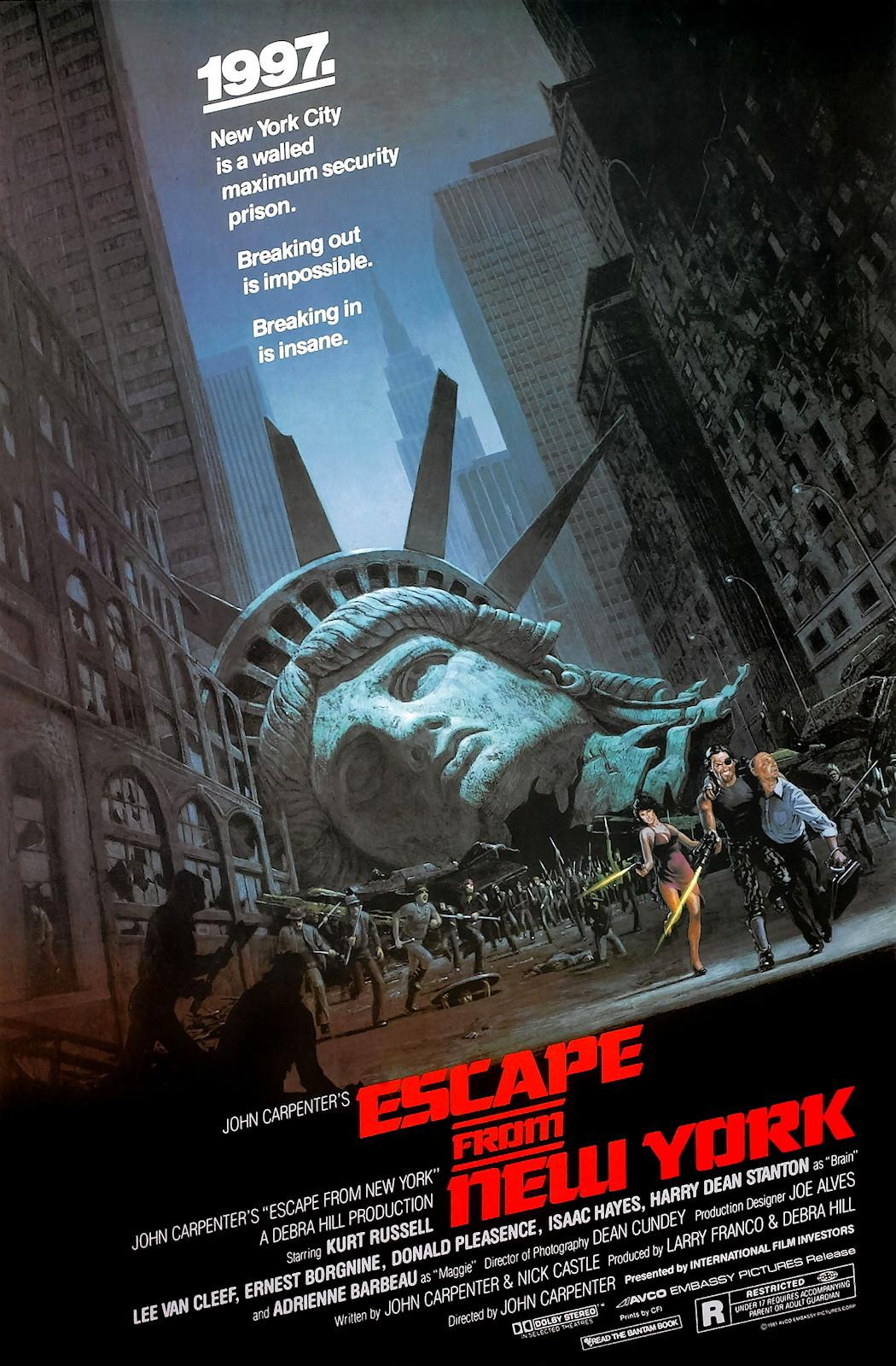
Escape from New York Font
Fonts in UseEscape from New York is a 1981 sci-fi action film directed by John Carpenter. It stars Kurt Russell as a former soldier turned criminal who is sent to rescue the President of the United States from a maximum-security prison in a dystopian, crime-ridden Manhattan.
The poster's title font resembles two fonts, namely Gamer by Canada Type or Cornered by SoftMaker. Both of these fonts were likely inspired by an old film typeface called "Checkmate" created by Lettergraphics.